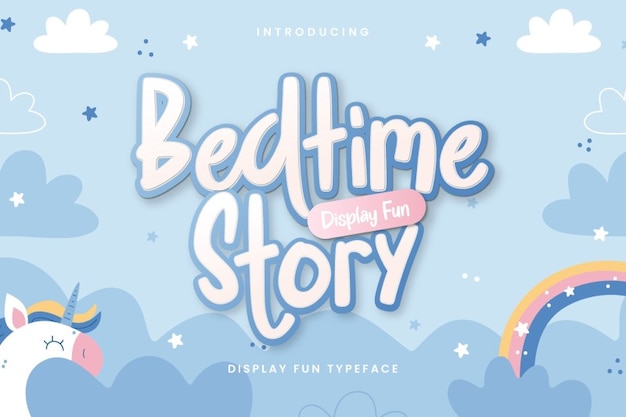
Bedtime Story Font
Designed for kids, it's a fun, rounded typeface that feels like a playful adventure. Each letter is a chapter in a whimsical tale, inviting imagination to run wild. Perfectly rounded edges give it a friendly touch, making reading a joyous experience. It's the font that brings bedtime tales to life, ensuring every word is a delightful journey into imagination.